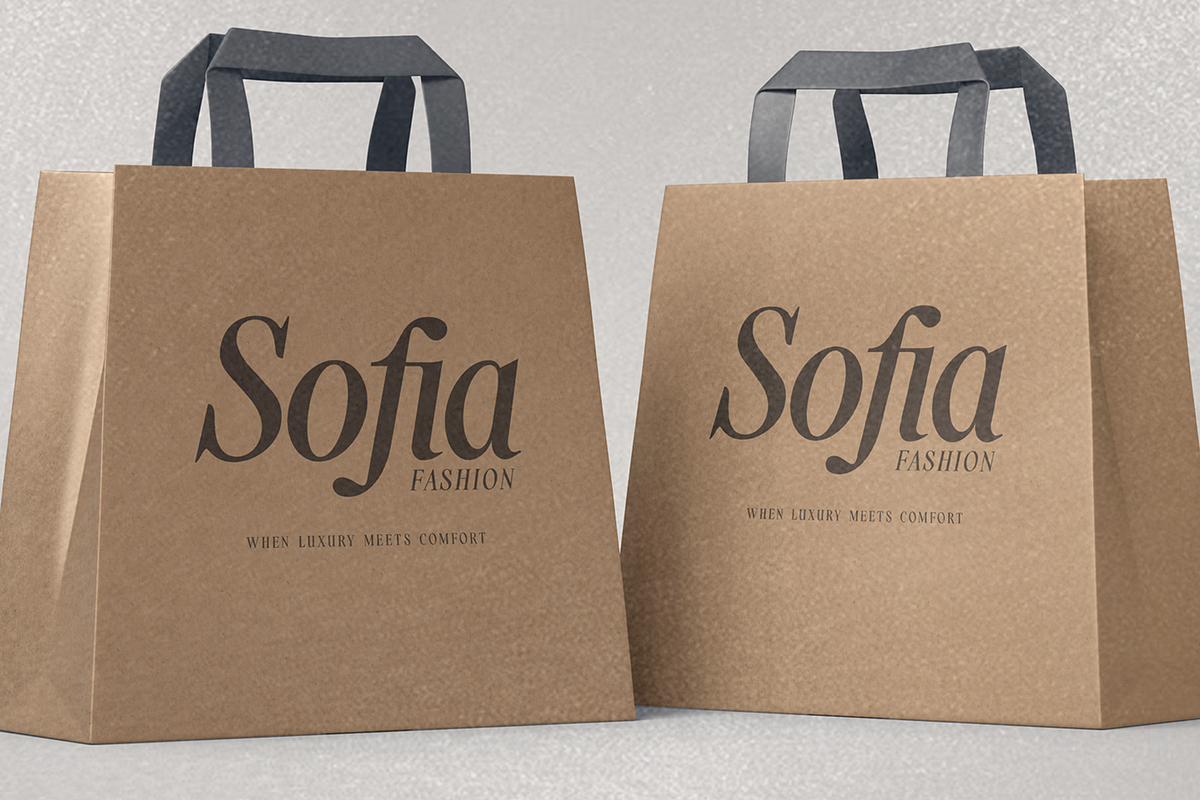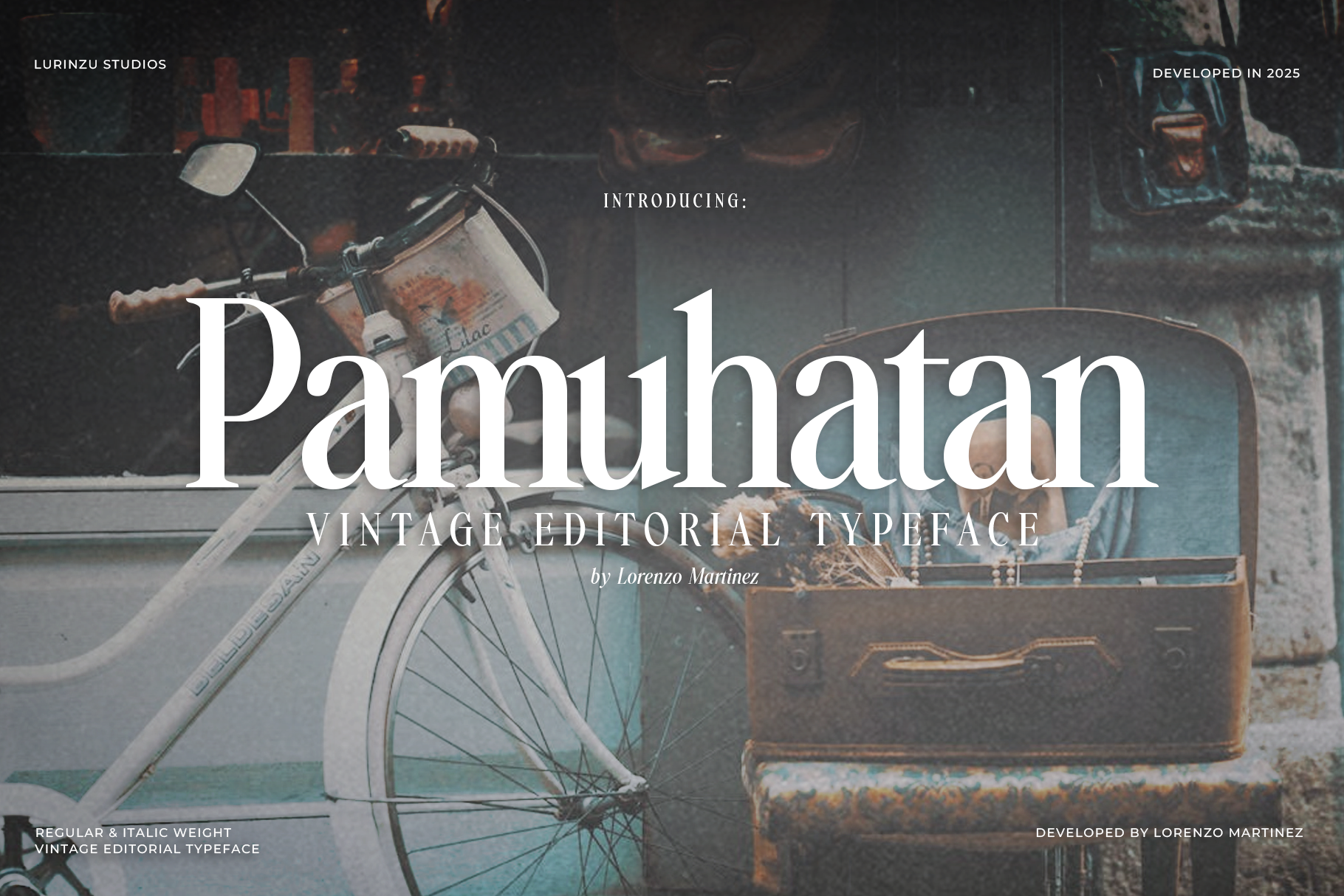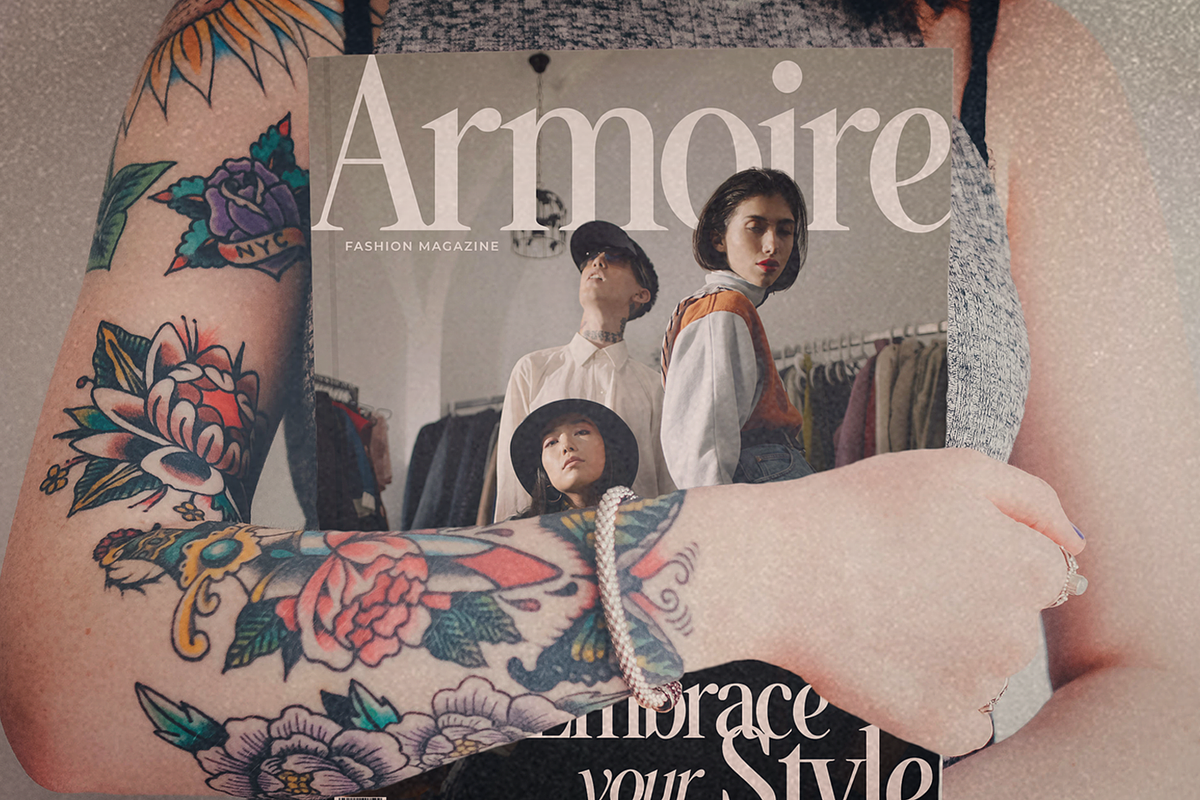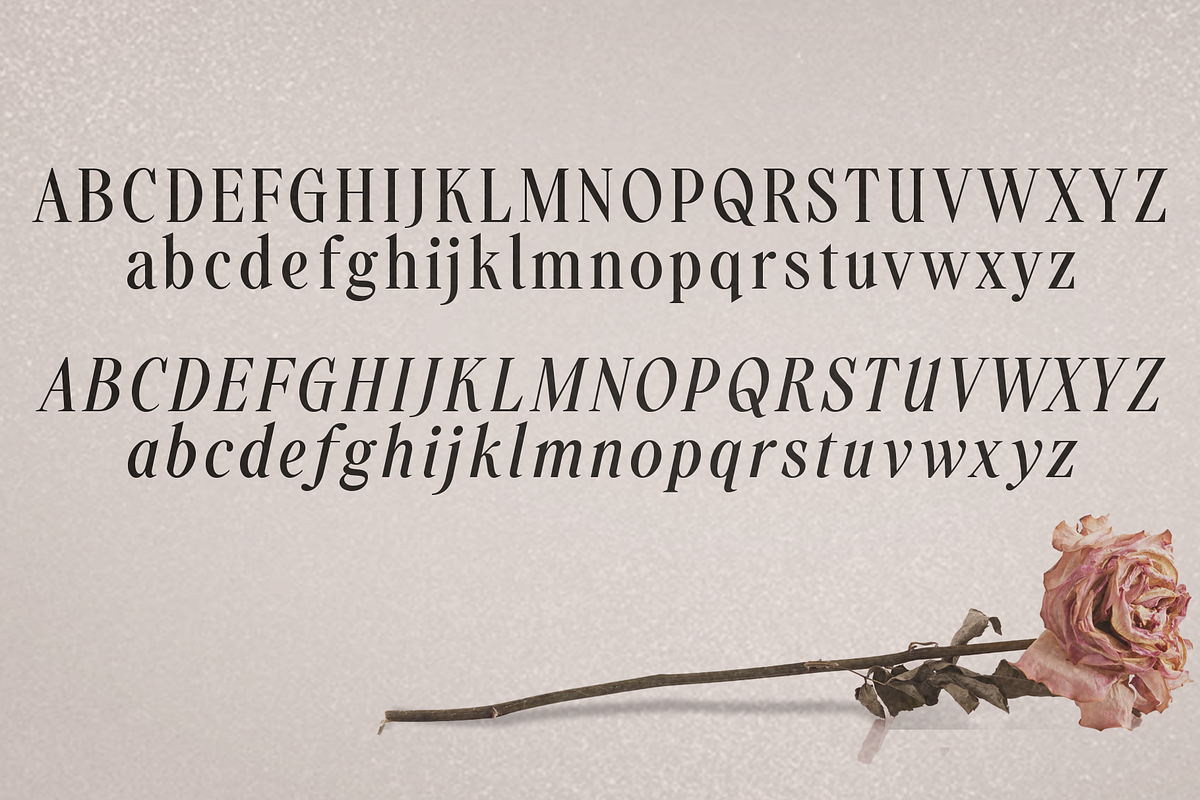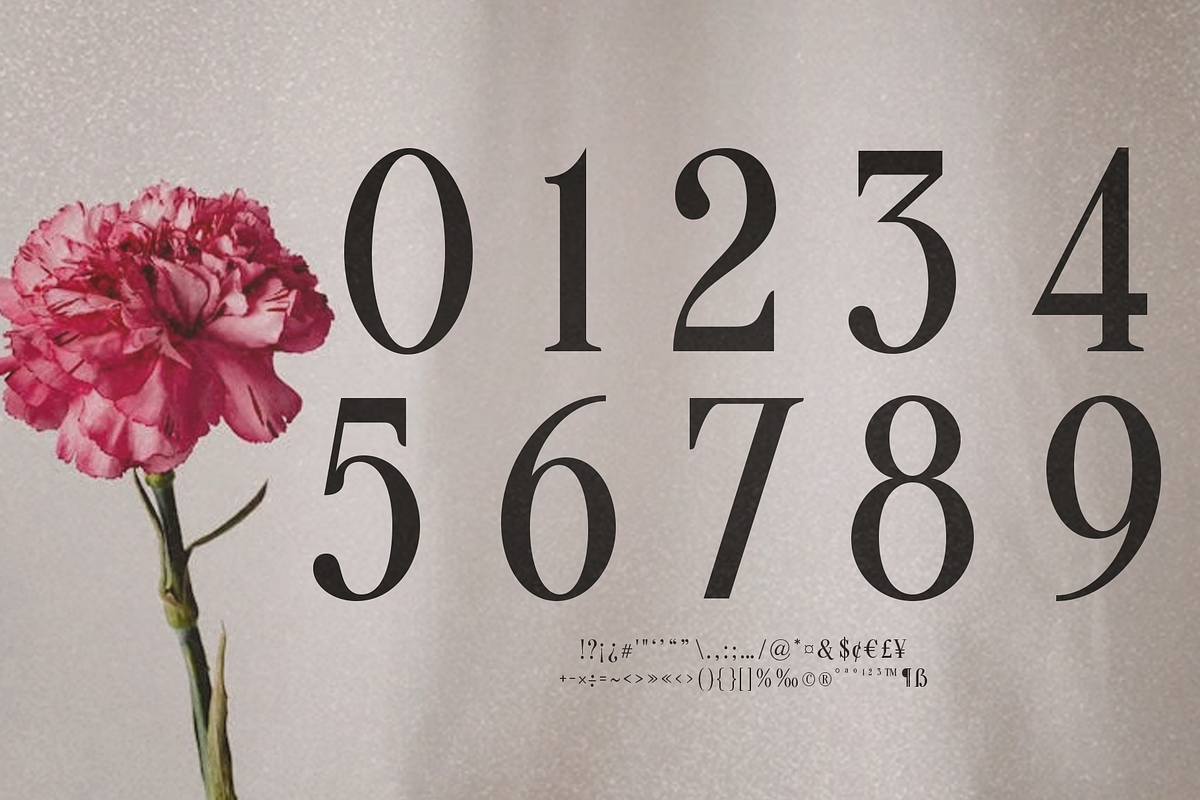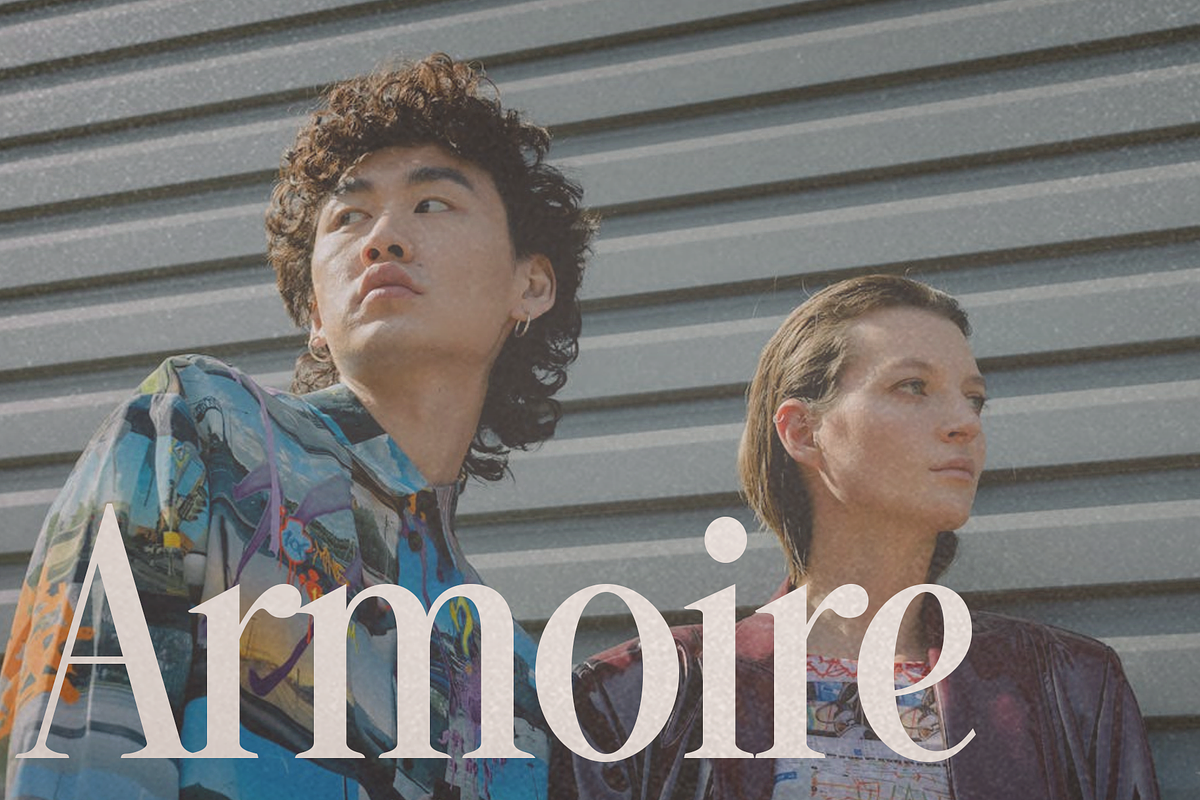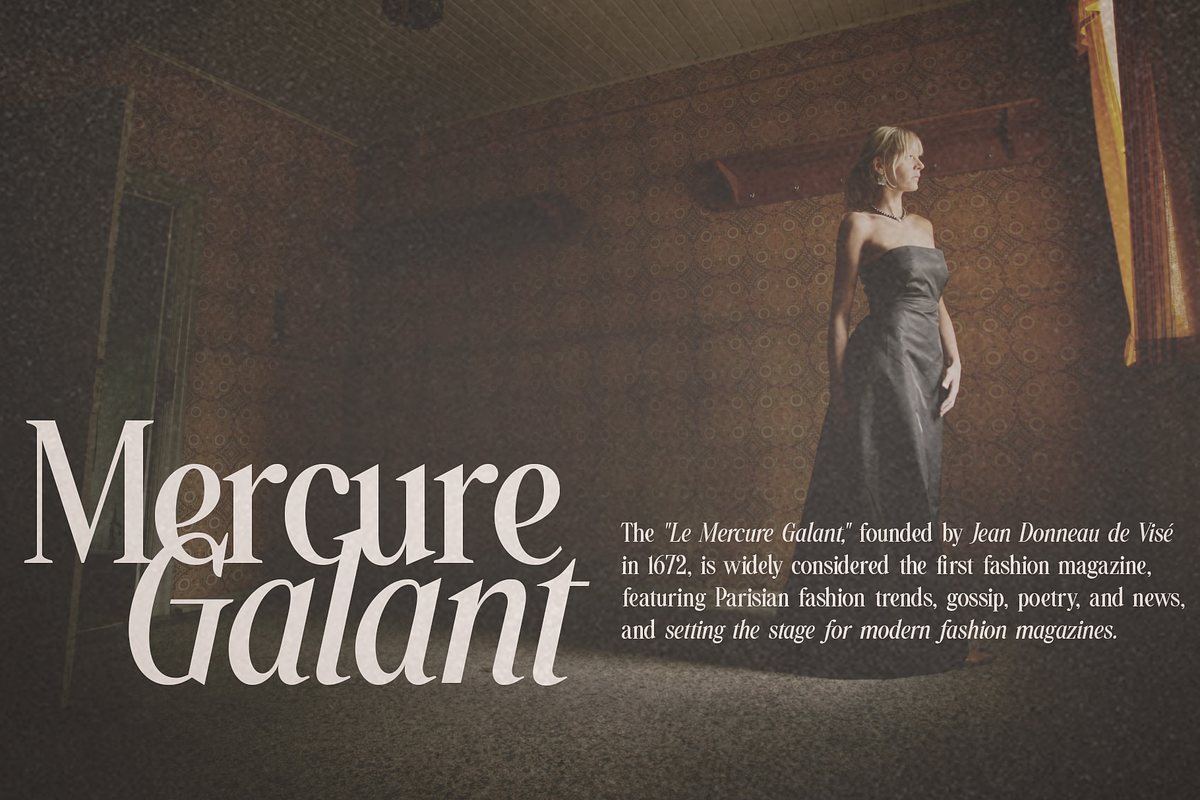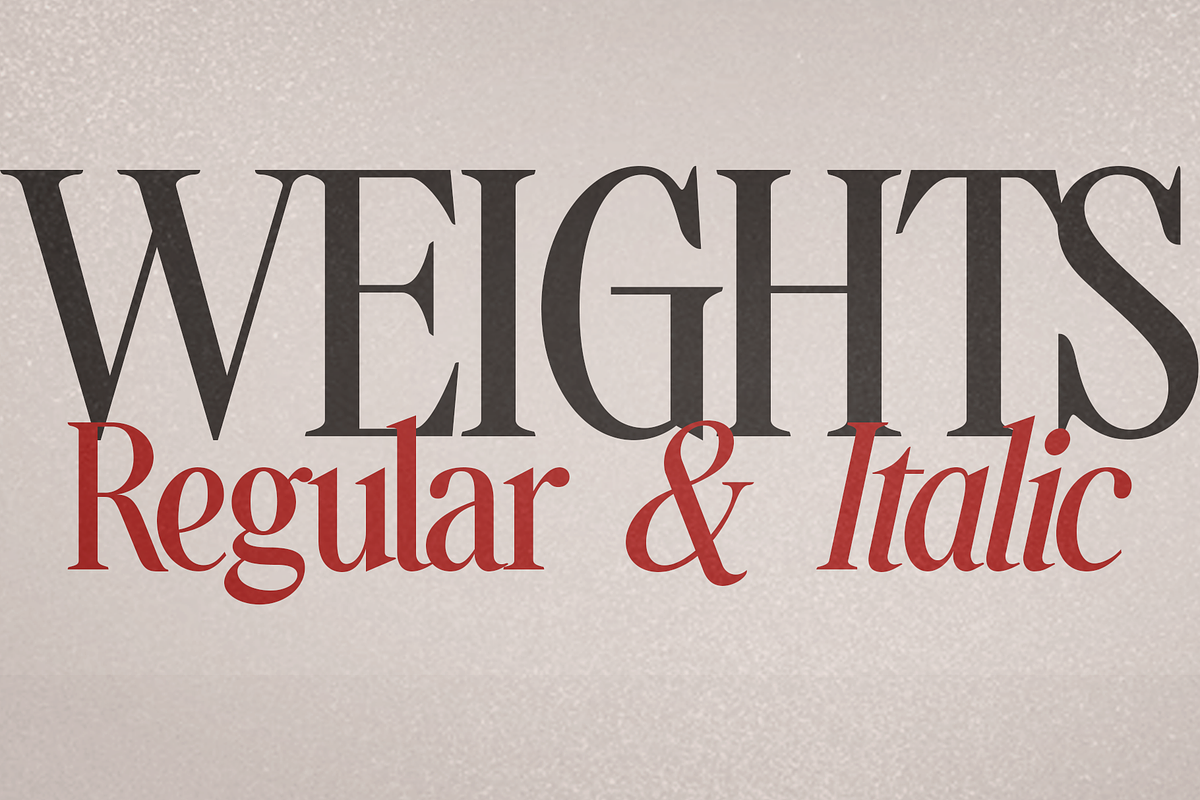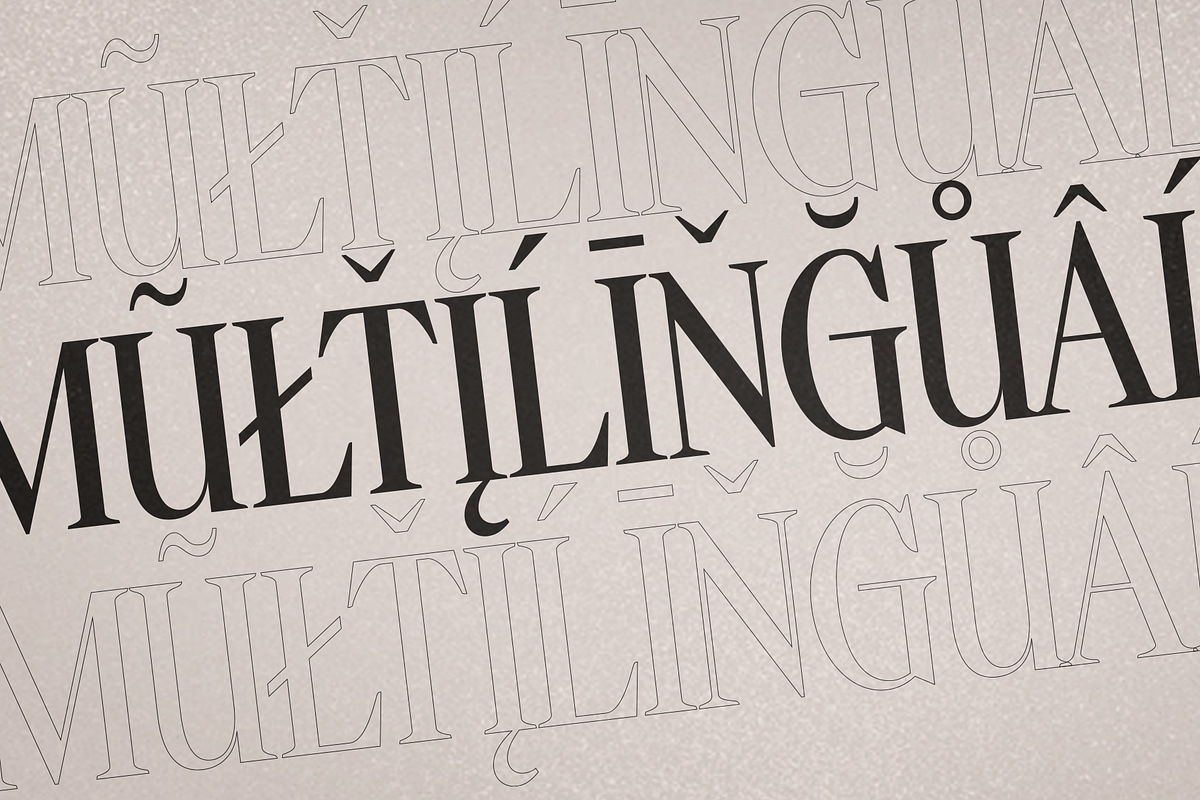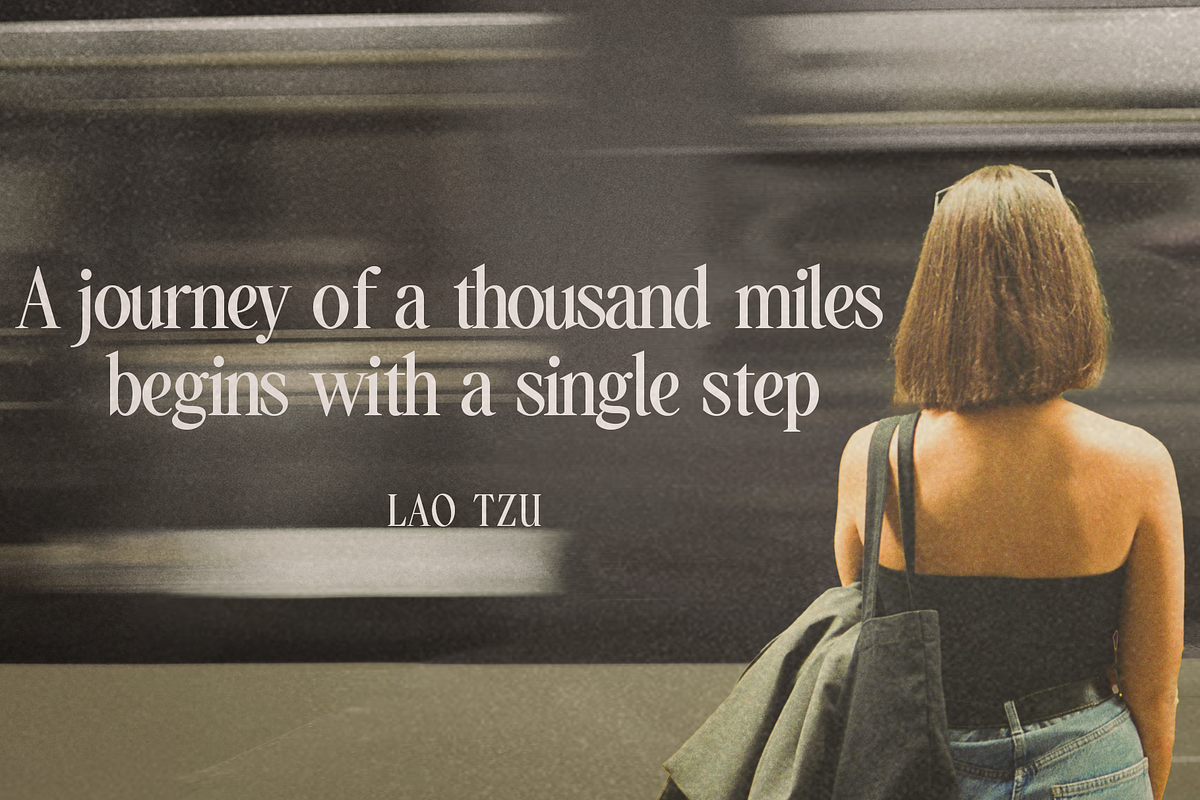
Pamuhatan - Vintage Typeface
Pamuhatan is a vintage editorial typeface inspired by early high-fashion magazine covers. With its sophisticated style and tight kerning, it captures the luxurious, high-end feel of old-fashioned magazine titles, while still fitting seamlessly into modern design.
This font is timeless and versatile, making it perfect for:
- Editorial layouts and magazine-style branding
- Fashion campaigns and lookbooks
- Logo design and brand identities
- Posters, flyers, and social media graphics
- Product packaging and luxury labels
✦ Key Features:
- Elegant vintage serif style with a modern twist
- Tight kerning for that classic, high-end editorial look
- Designed for maximum visual impact in headlines and titles
- Ideal for fashion, beauty, lifestyle, and luxury design themes
Whether you're creating a stylish magazine spread, a chic brand identity, or a bold fashion poster, Pamuhatan gives your design that premium, editorial edge.